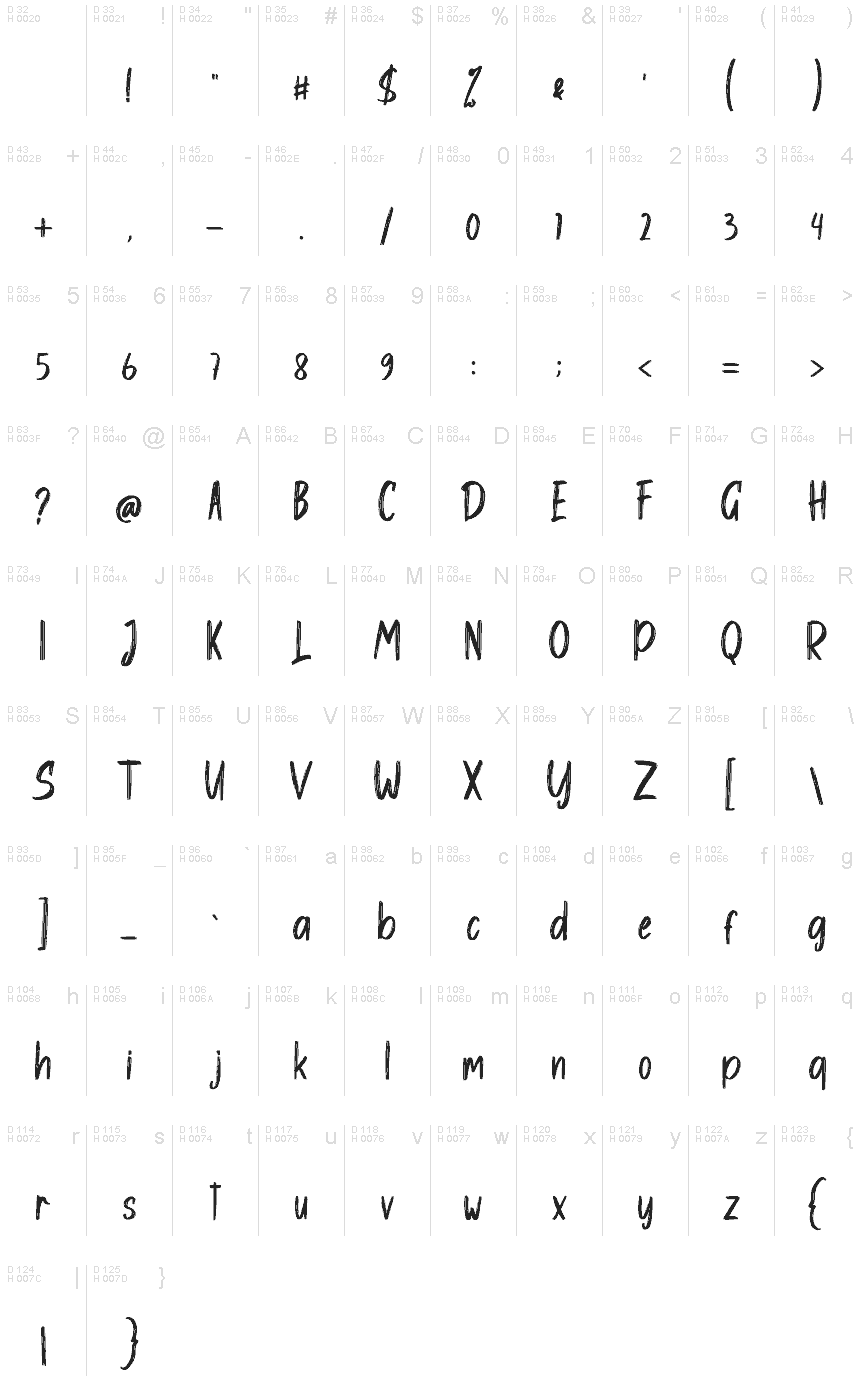
Lagurels
Lagurels is a free brush script font designed by Skiiller Studio. It comes with a limited set of uppercase characters, numbers, and basic punctuation. It resembles hand-written letters and it can be easily combined with other fonts such as sans serif or geometric fonts.
It is suitable for creating logos, advertisements, flyers, posters, business cards, wedding invitations and quotes. It can also be used for projects that require bold, elegant, modern and calligraphic writing like packaging designs for makeup products, clothing labels, book titles, menus, magazine or journal covers.